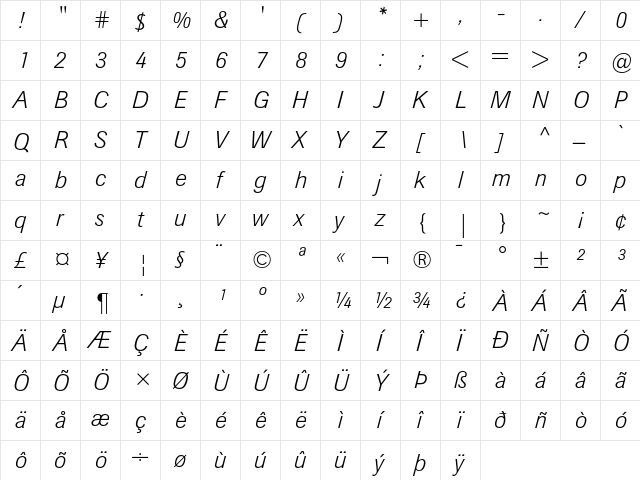
Berthold Imago Light Italic Font Preview
Design Context for Berthold Imago Typeface
Berthold Imago offers clean, dependable letterforms without strong stylistic allegiance, making it a practical choice for designers who need flexibility. Its italic angle brings a sense of urgency and motion to the letterforms. The delicate stroke weight brings airiness and refinement to layouts.
Pro Tip: Try Berthold Imago for annotation and caption copy alongside an upright companion — the contrast in angle creates a dynamic but ordered typographic system.